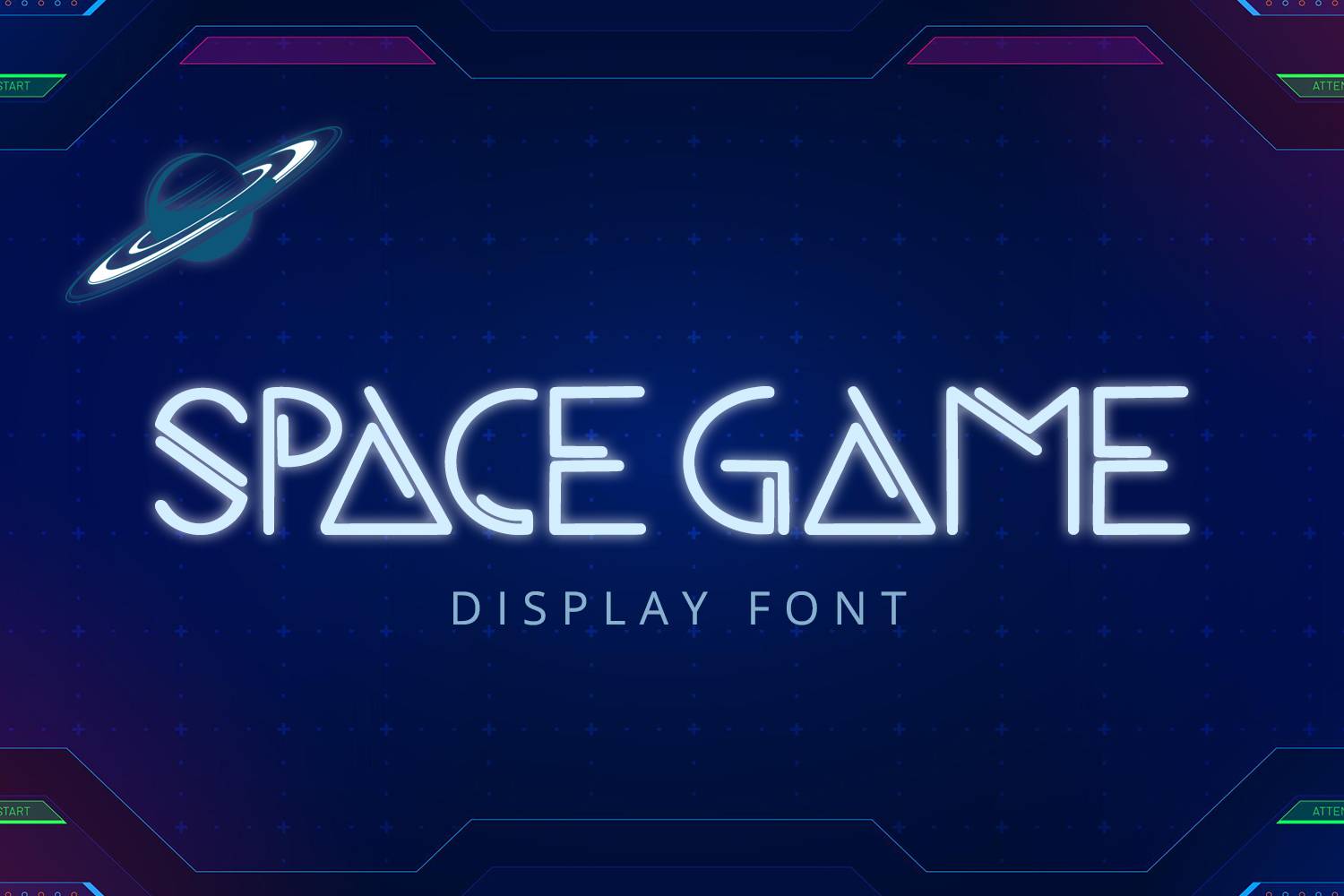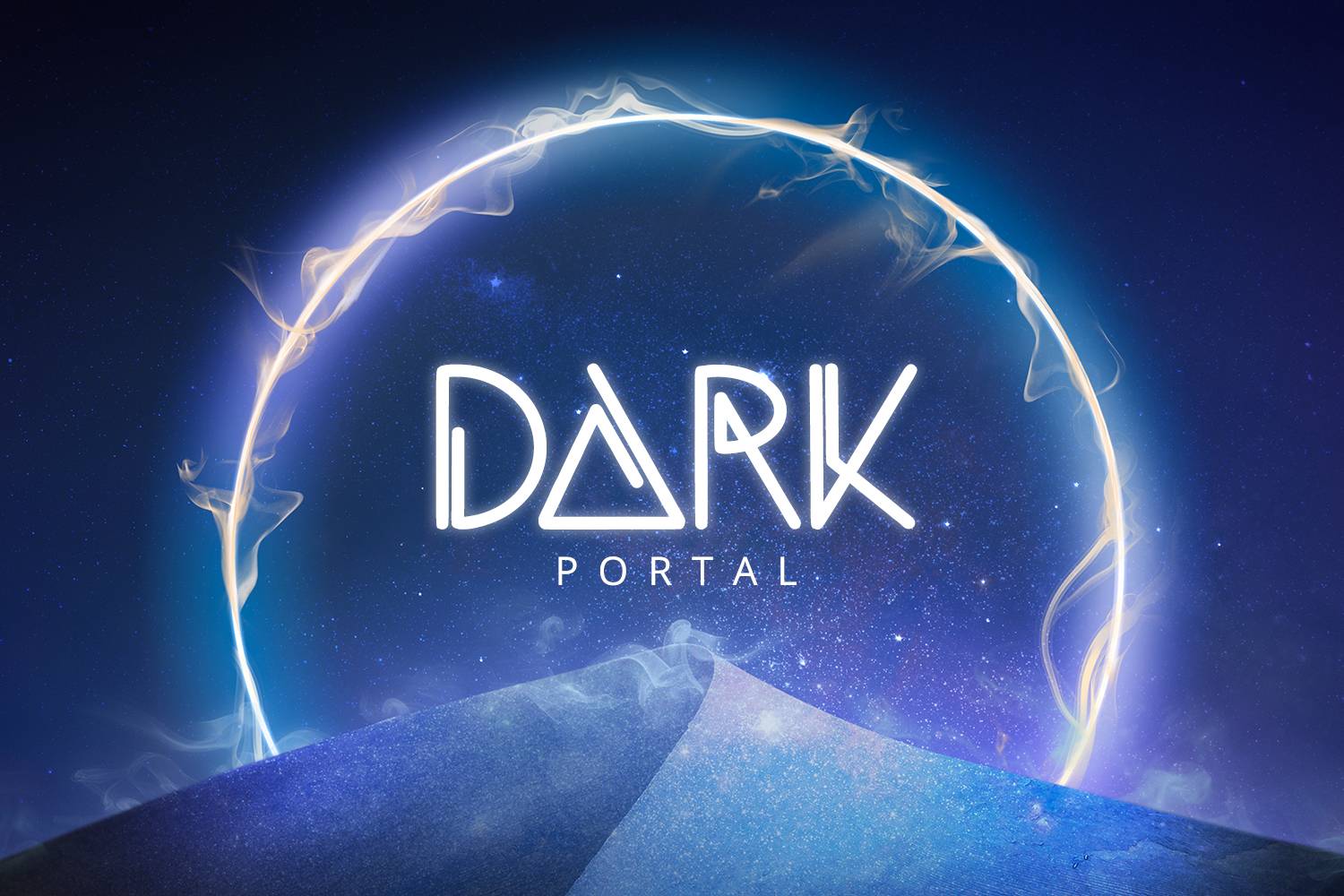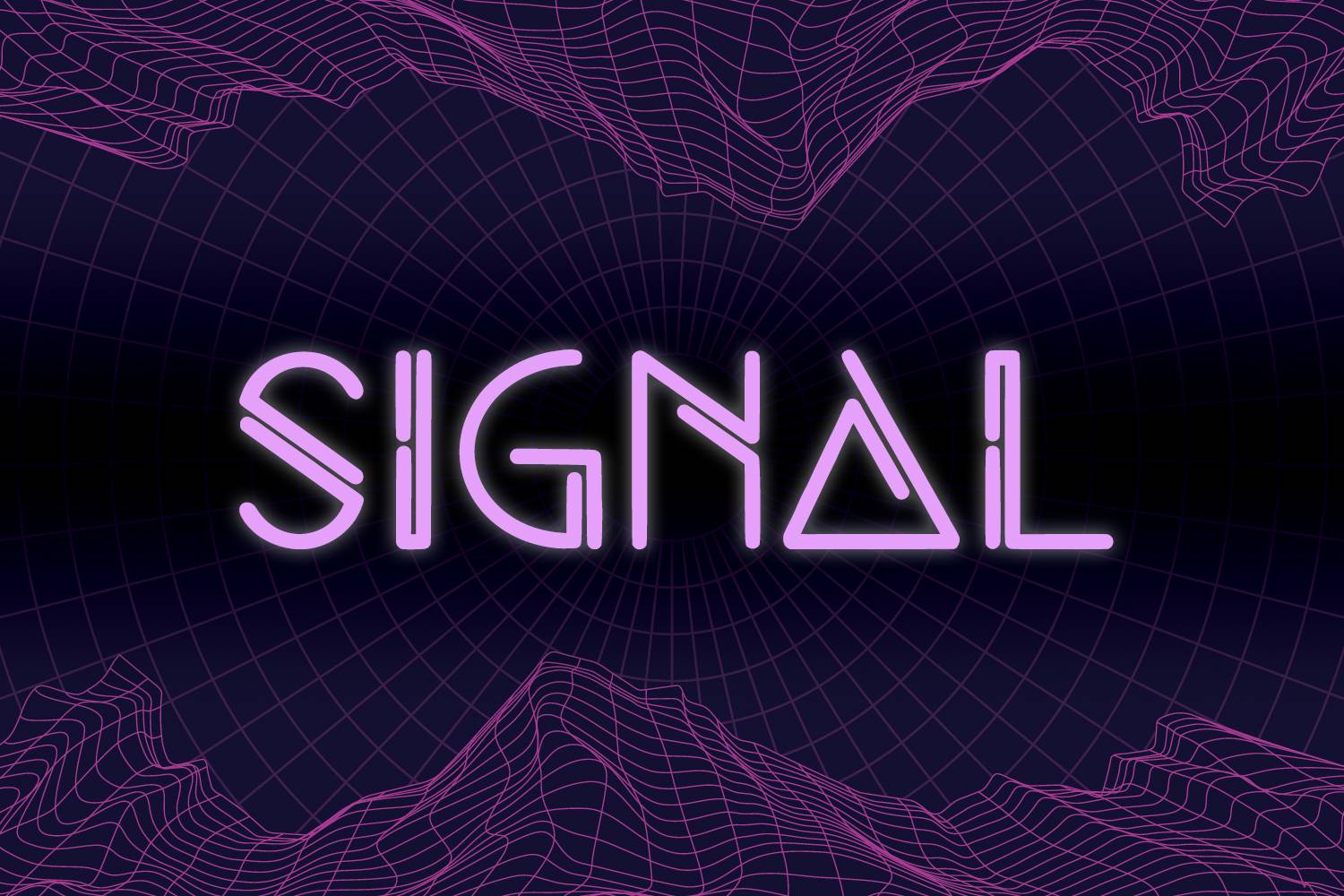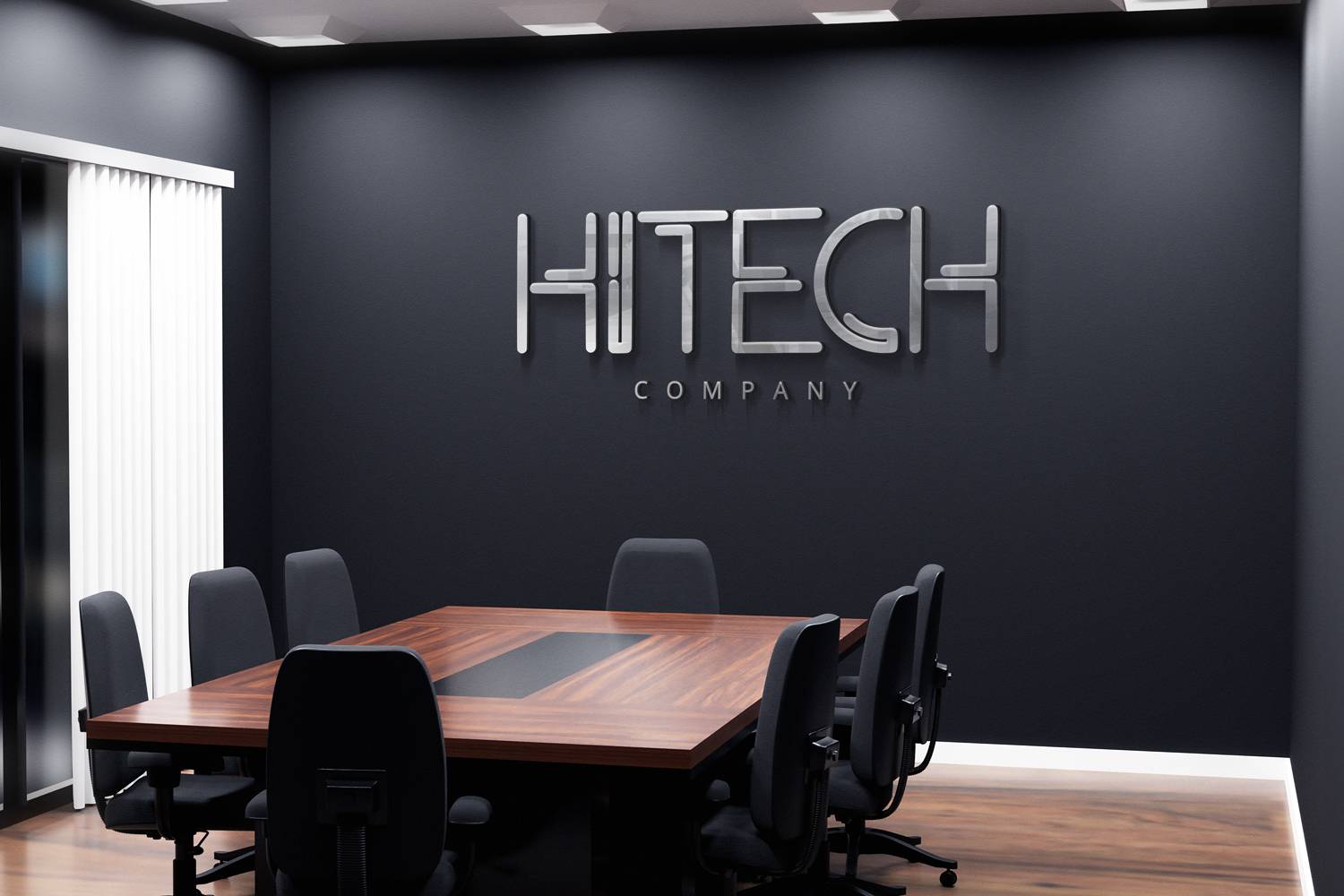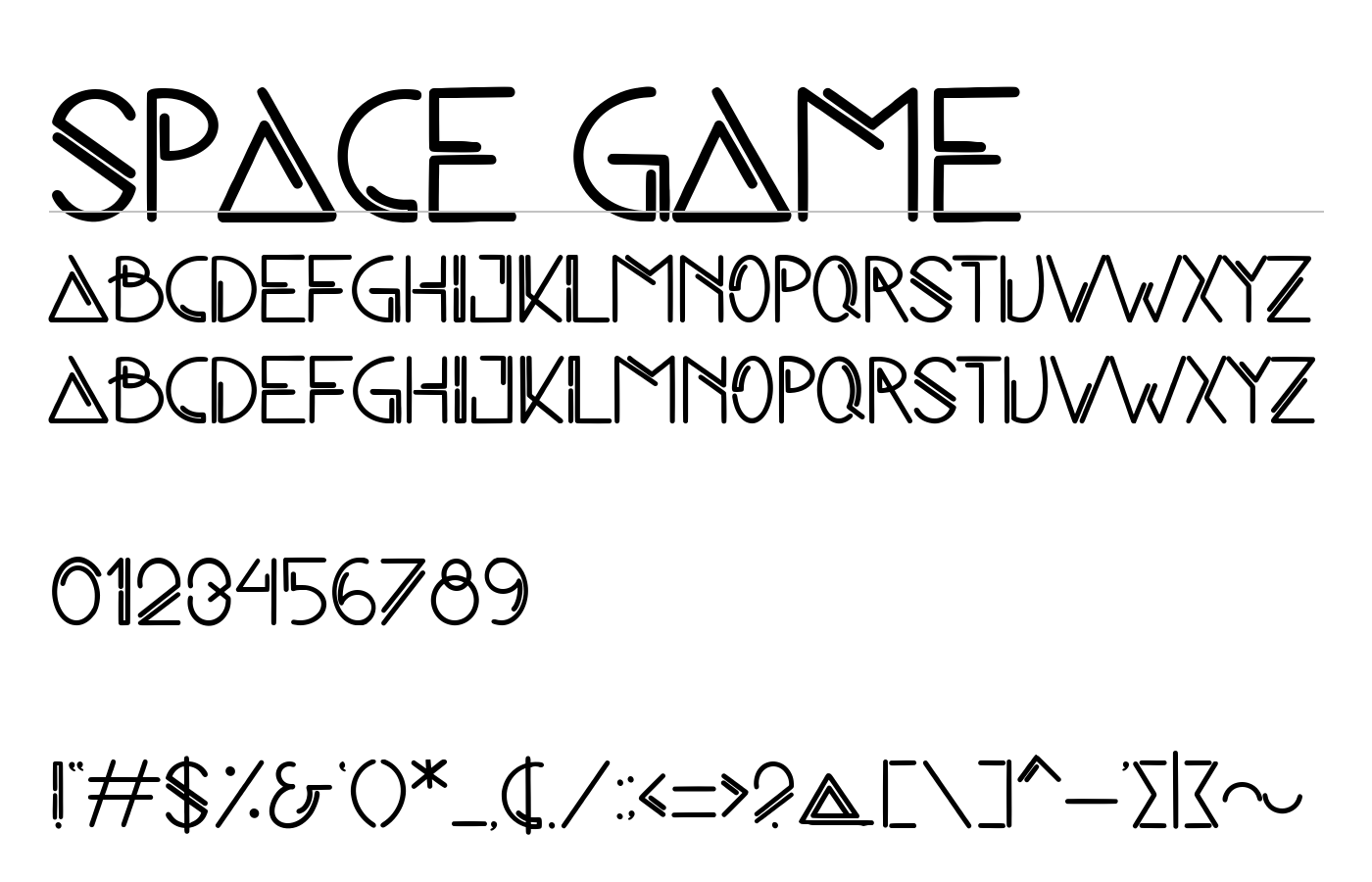
Space Game Font is a futuristic, geometric sans serif typeface with a light weight and open, airy letterforms that evoke a playful yet technological vibe. Its clean lines and unique character shapes, like the triangular A and stylized Q, make it ideal for sci-fi themed branding, game titles, and modern digital designs seeking a sleek, otherworldly aesthetic. This font shines in headlines and logos where its distinct style can stand out and capture attention.
Space Game Font
About Space Game Font
| Font family | Space Game Font |